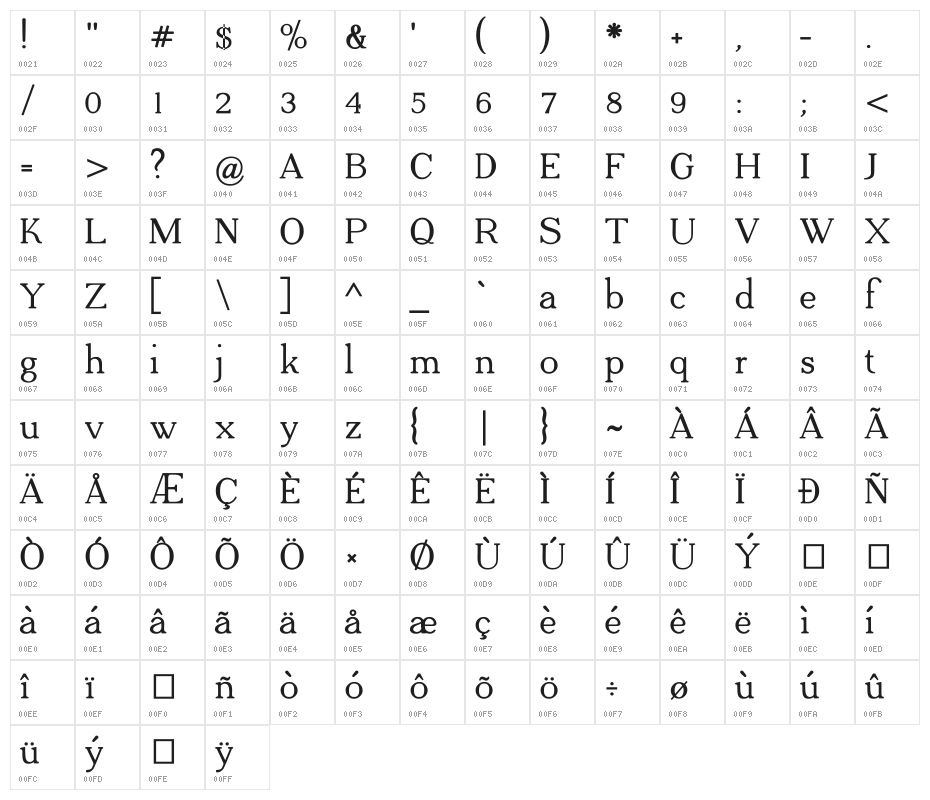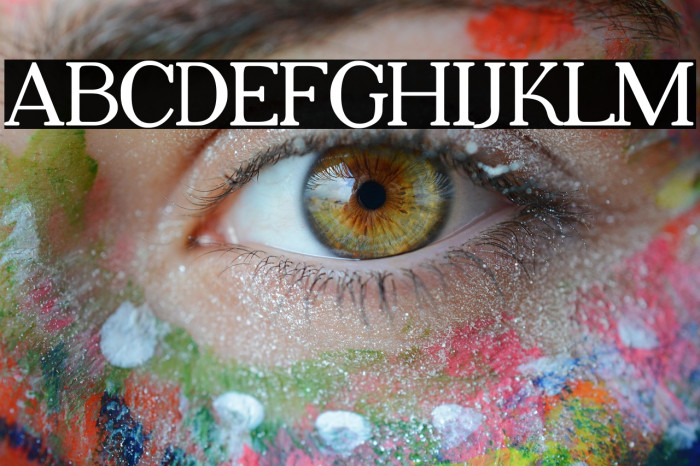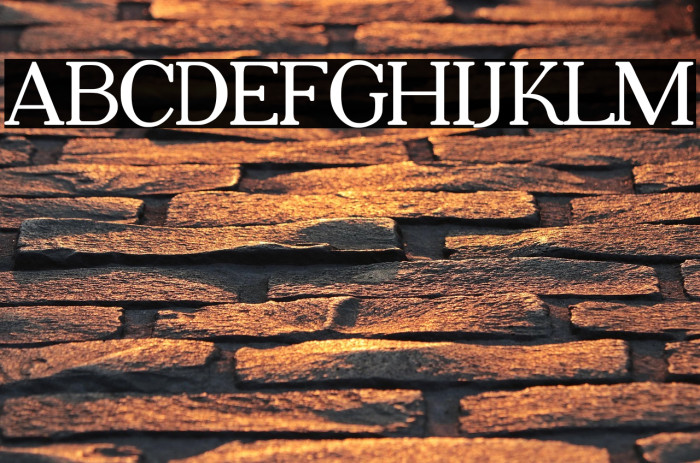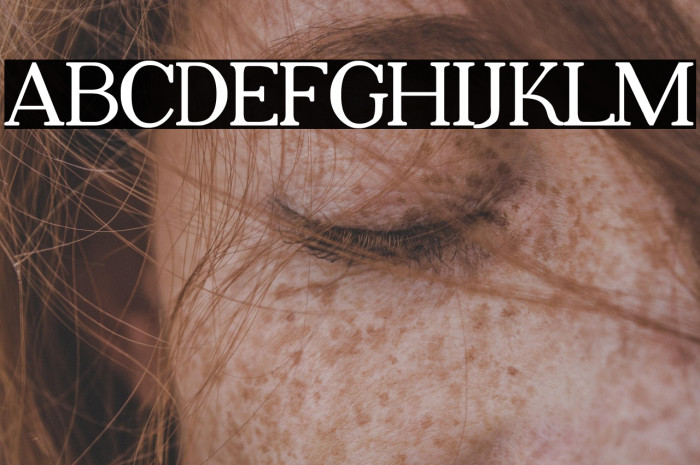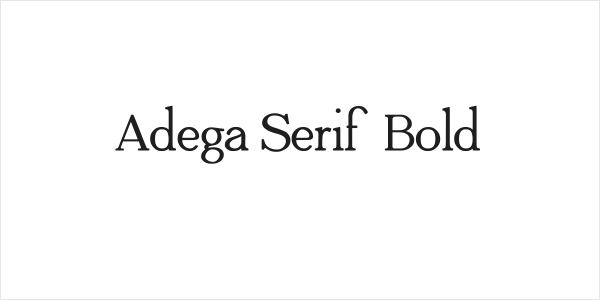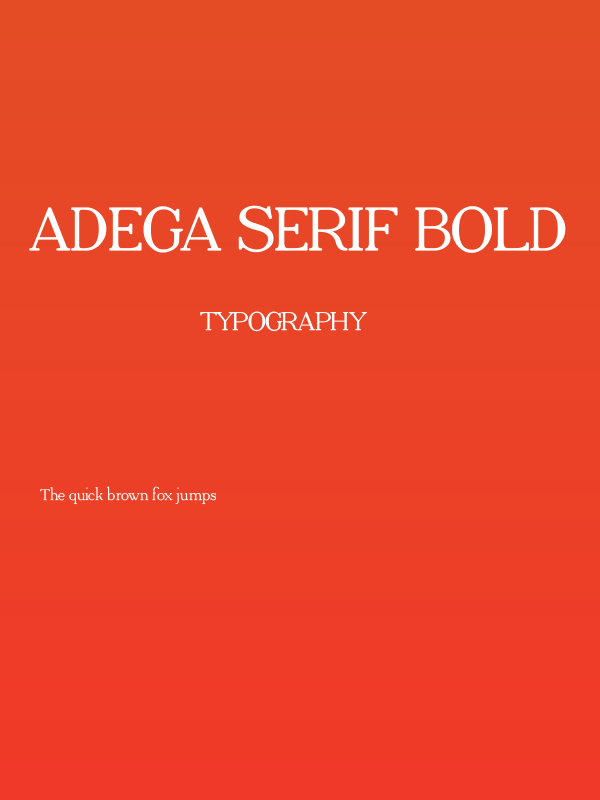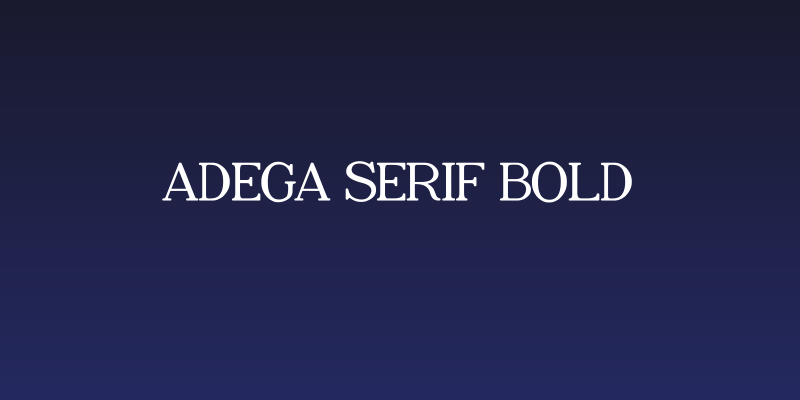
Adega Serif Bold Font
Adega Serif Bold Description
This font features a classic serif style with bold, prominent strokes that give it a strong and authoritative presence. The uppercase letters are tall and elegant, while the lowercase letters maintain a consistent and harmonious flow. The numerals are clear and well-defined, making them easily readable. Special characters are designed with the same attention to detail, ensuring they integrate seamlessly with the rest of the typeface. The overall design is balanced, with a slight emphasis on vertical strokes, providing a traditional yet modern appeal.
| Proposed Projects | Ideal for book covers, editorial design, branding projects, and formal invitations. |